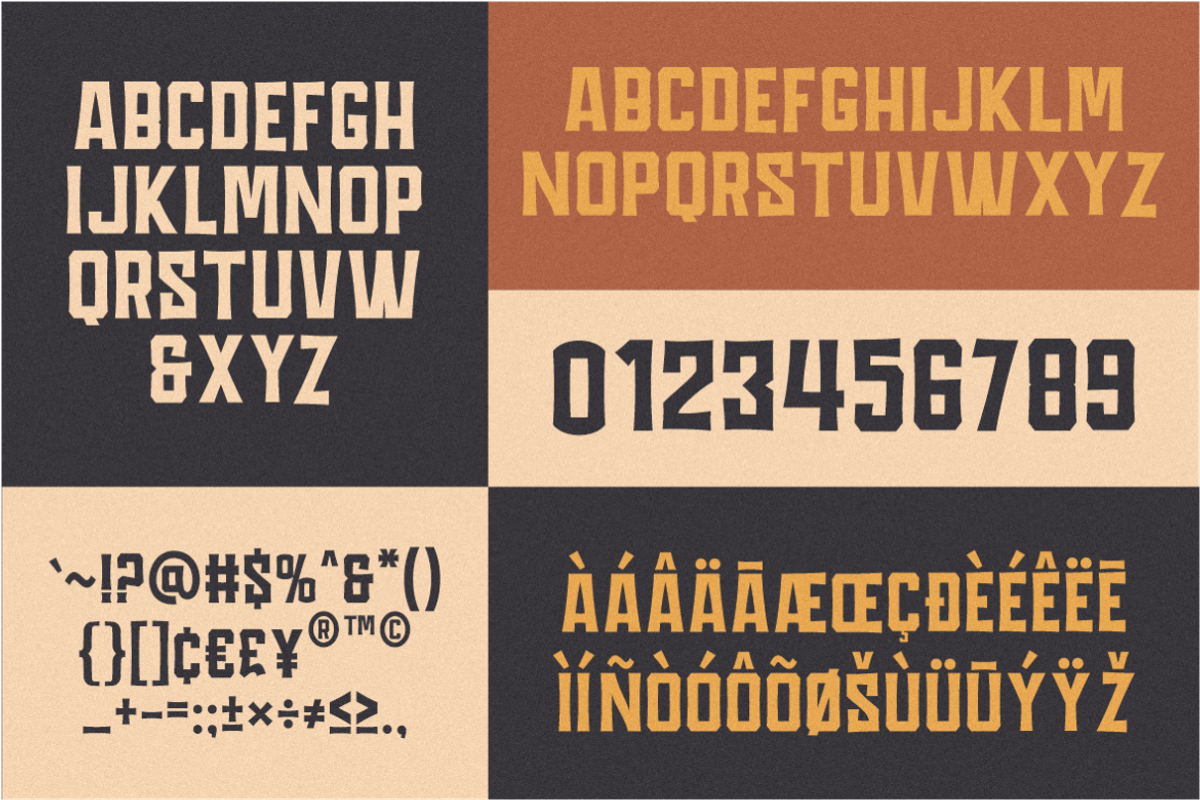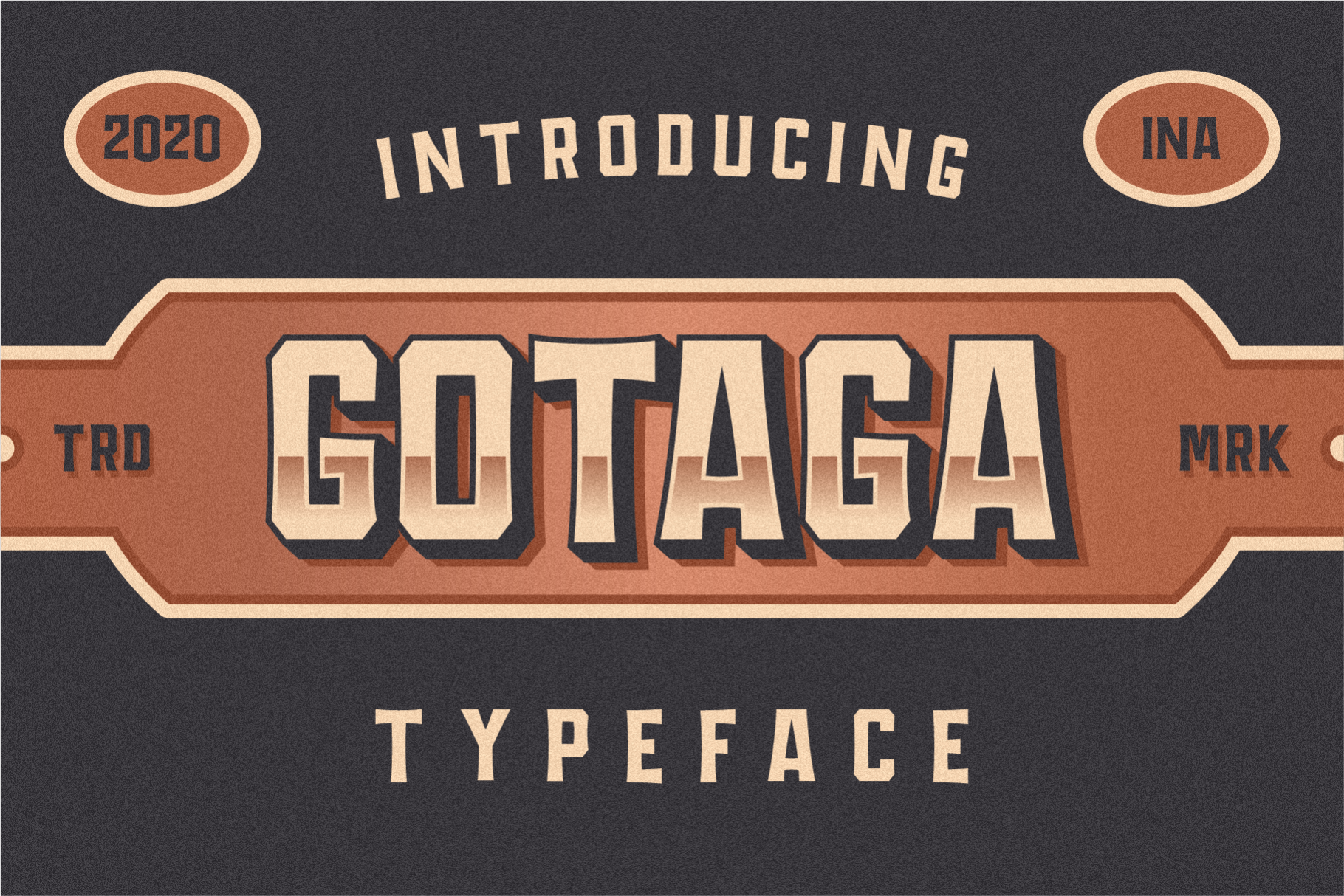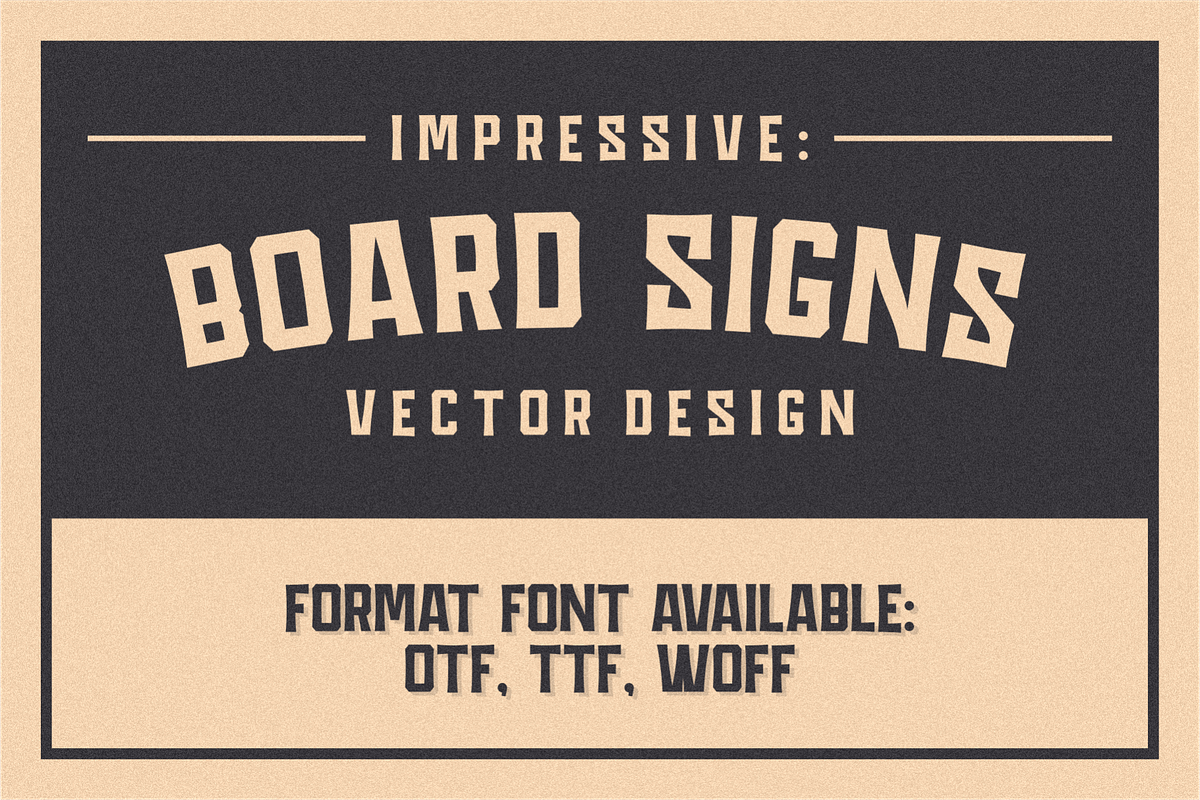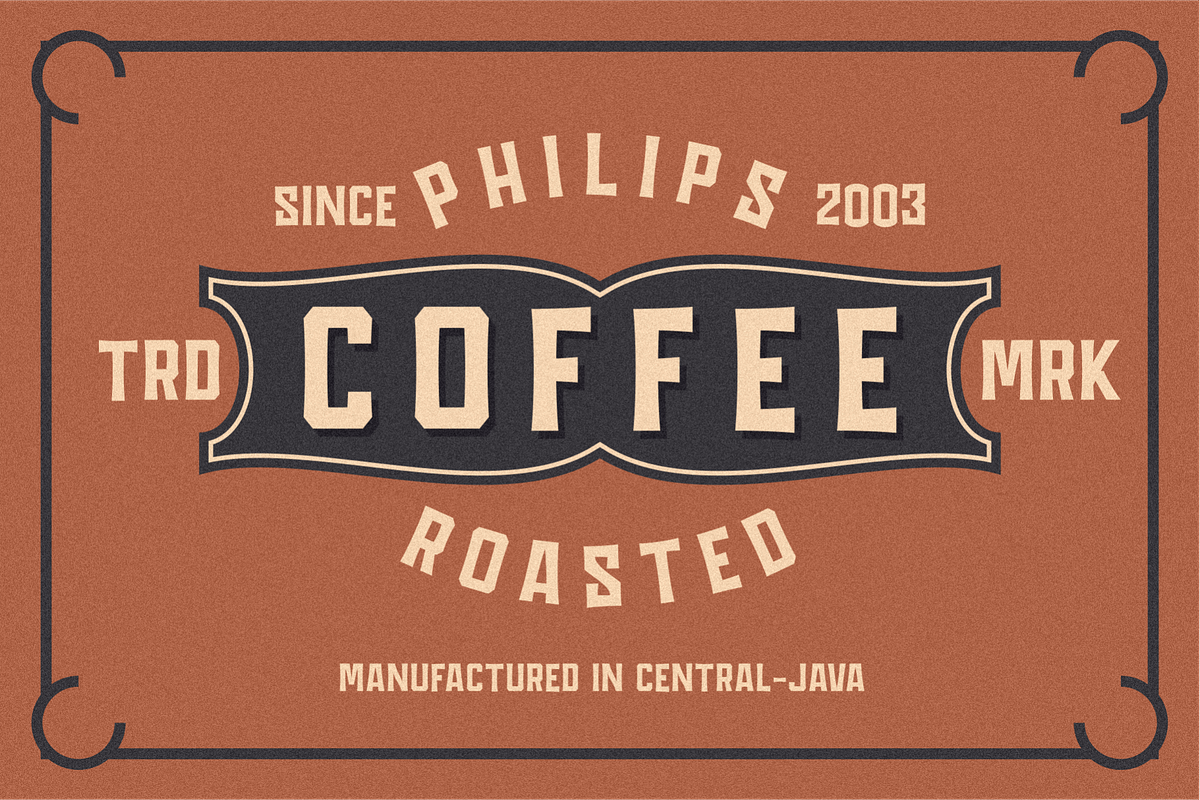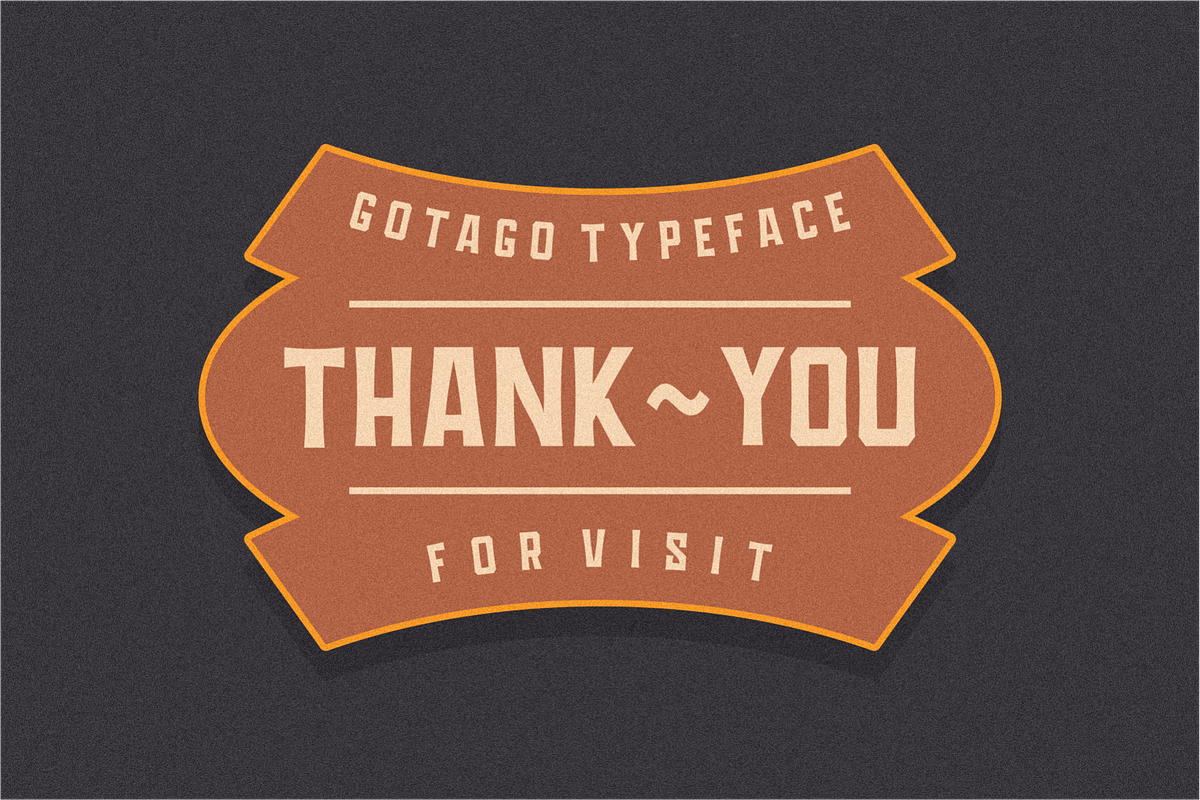
GOTAGA TYPEFACE
GOTAGA TYPEFACE is a display font suitable for logos, master signs, posters, typography art, label designs, and more.
- Multilingual support (ÀÁÂÃÅÄÆŒÇÐÈÉÊËÌÍÎÏÑÒÓÔÕÖØŠÙÚÛÜÝŸŽŁ)